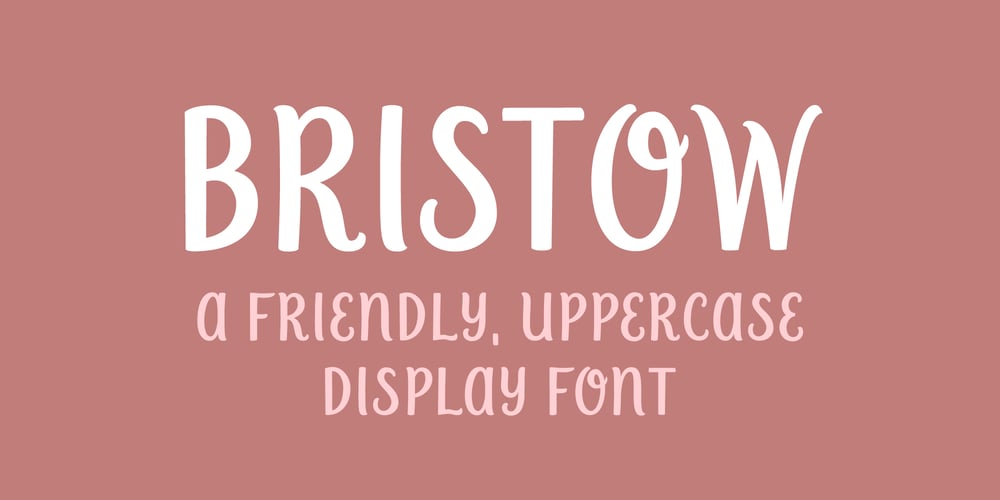
Bristow
Bristow font
Bristow Font Family was designed by Danielle Edwards and published by Danielle Eneh. Bristow contains 1 styles and family package options. Bristow is a friendly, uppercase display font that’s perfect for your next project. Branding, social media posts, advertisements, product packaging, and invitations. It includes 2 uppercase options for more customization.Multilingual Support: AÀÁÂÃÄÅCÇDÐEÈÉÊËIÌÍÎÏNÑOØÒÓÔÕÖUÙÜÚÛWYÝŸ?ŸÆŒßÞþdis